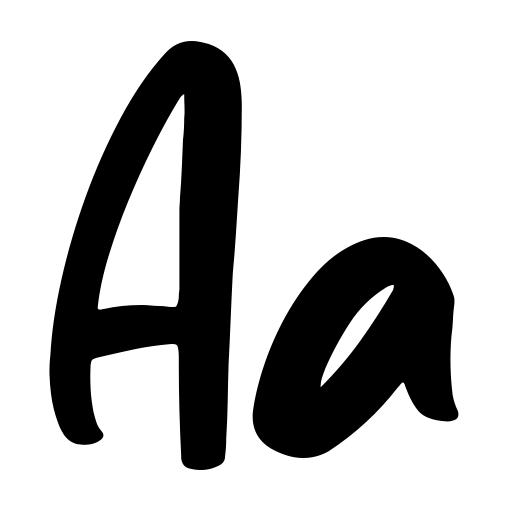
Avenus Type is a lively and casual handwritten font that features a bold, rounded style with playful strokes and a natural flow. Its informal character makes it perfect for creative projects, children's materials, and friendly branding, bringing a warm and approachable feel to headlines and logos. This font works well where a personal, hand-crafted look is desired, adding personality and charm to any design.
Avenus Type Font
About Avenus Type Font